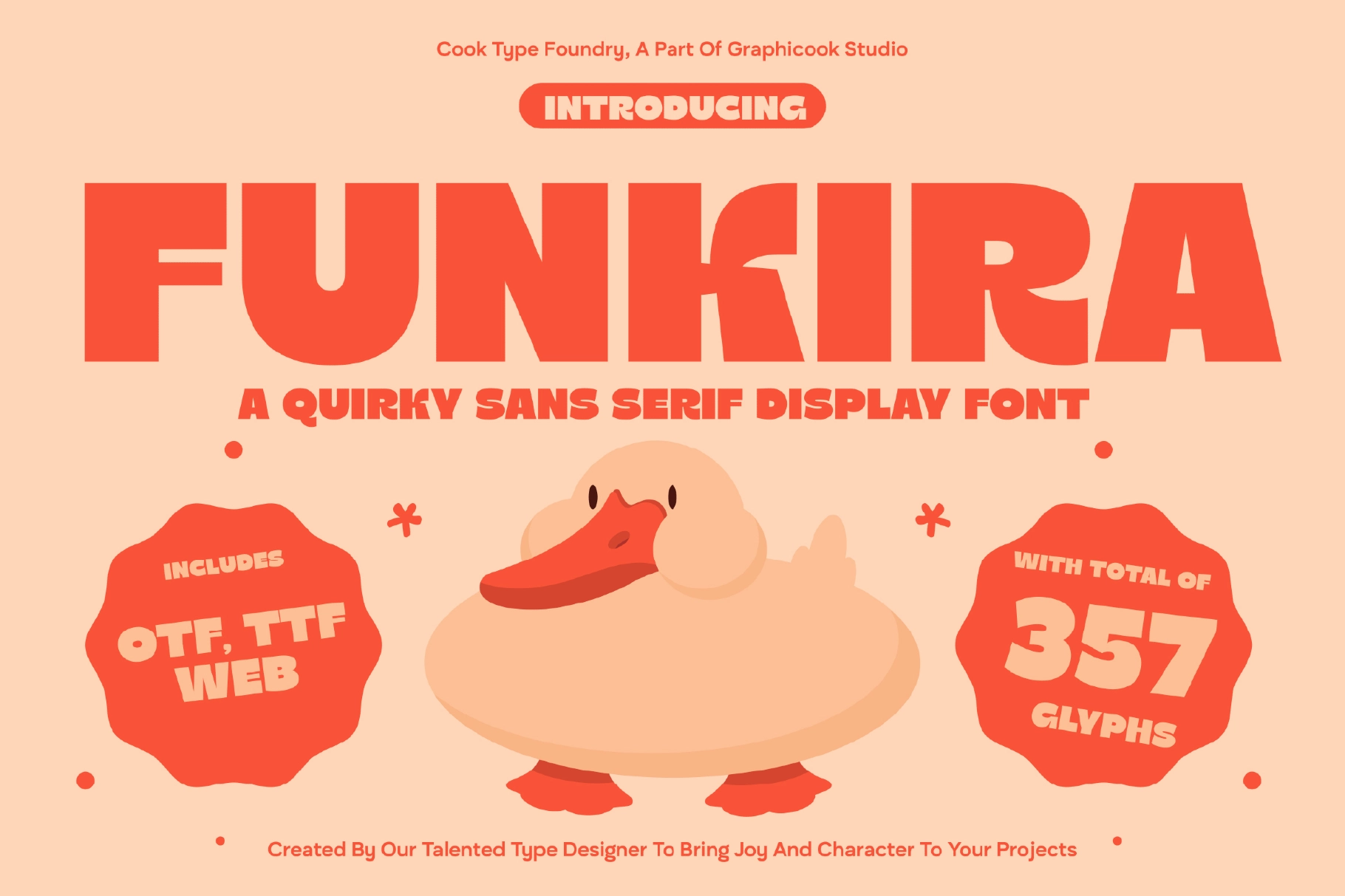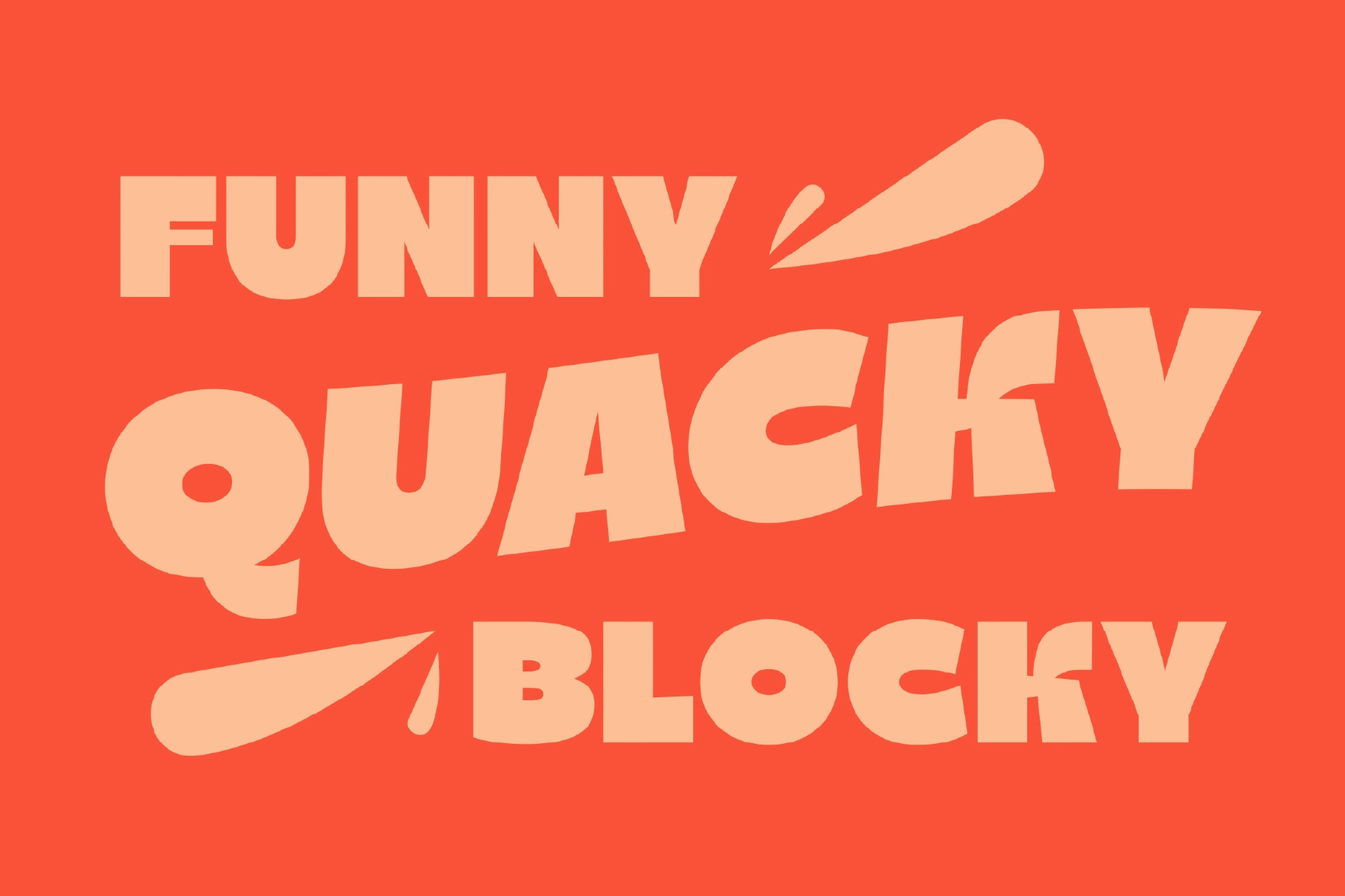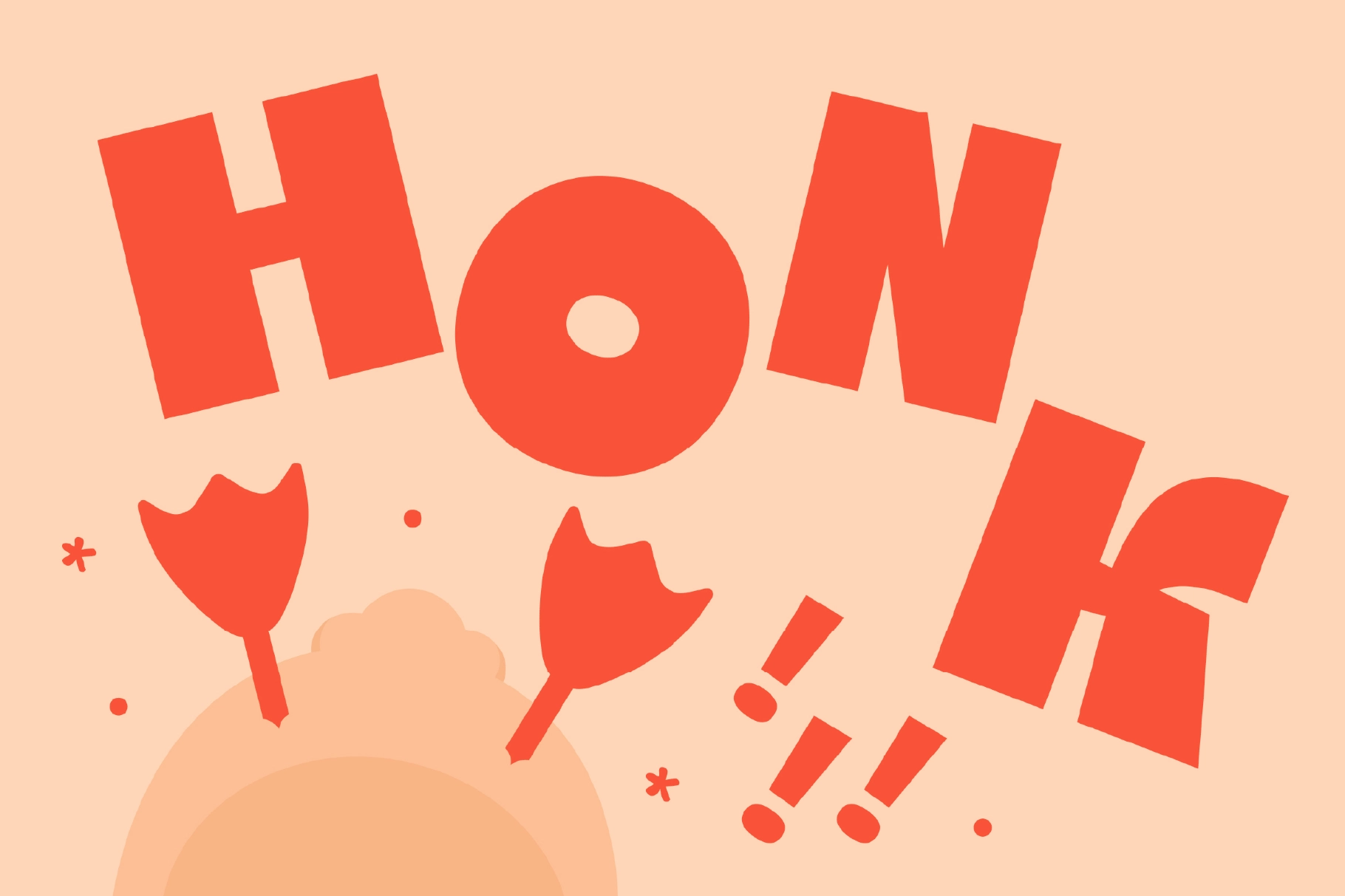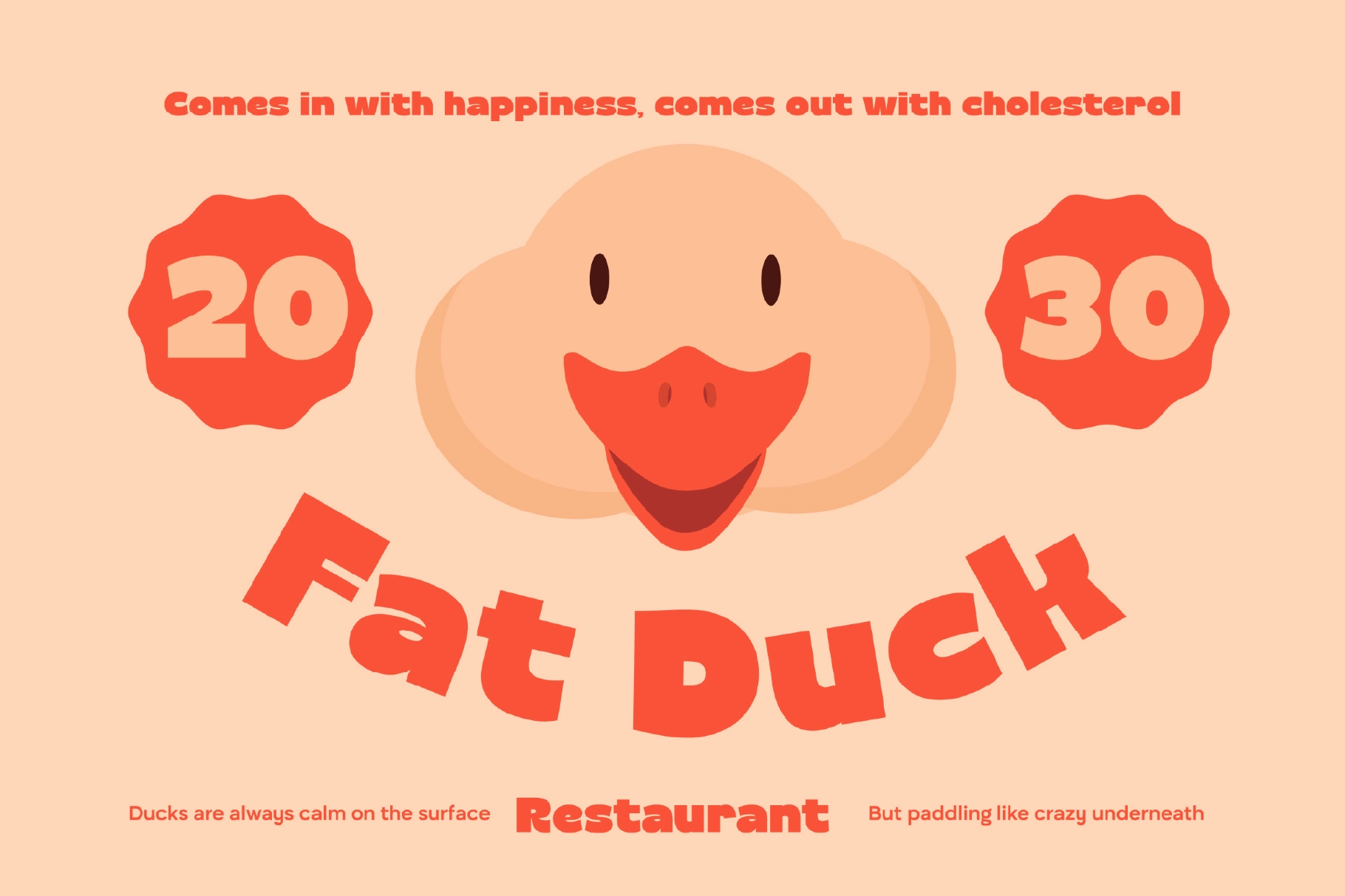
Funkira Font
Funkira
Funkira is a sans-serif font with unconventional, quirky letterforms that create a unique and playful impression. It’s perfect for designs that aim to be bold, expressive, and full of character.